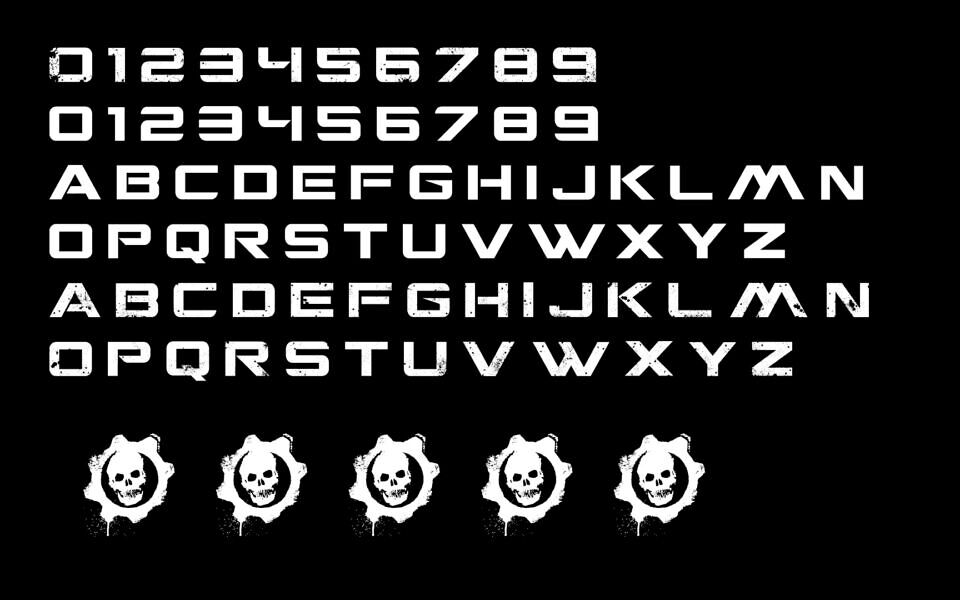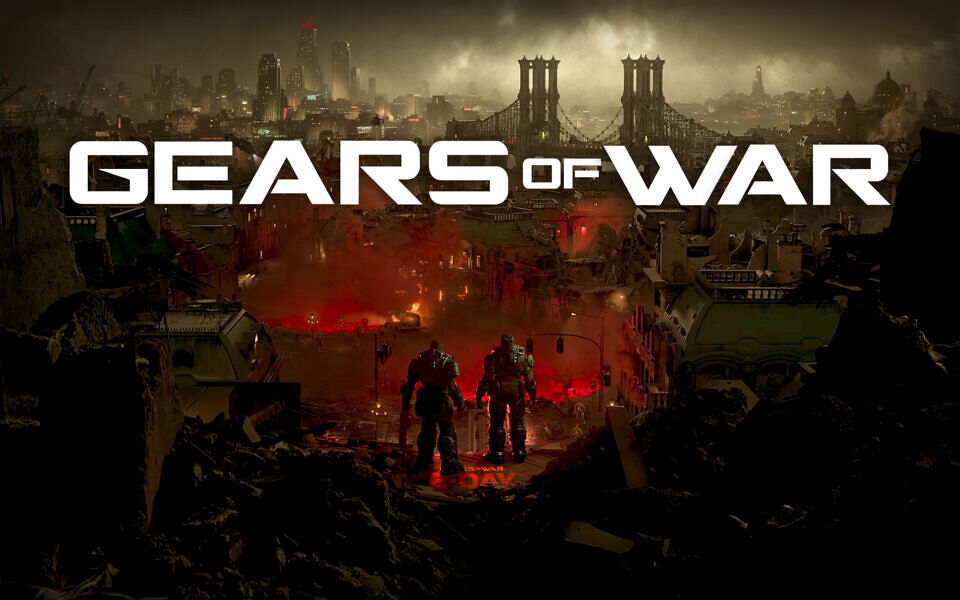
Gears Of War Font
Inspired by the iconic logo of the legendary video game series Gears of War, CGF Locust Resistance Font captures the gritty, battle-scarred style that made the franchise instantly recognizable.
Designed by Chris Garrett to replicate the original Gears of War logo font, this bold sci-fi typeface features sharp edges, distressed details, and a military-industrial aesthetic. Perfect posters, logos, thumbnails, headers, t-shirts, fan art, and futuristic designs that demand a strong and aggressive visual impact.
There are 2 fonts included in one:
• CGF Locust Resistance (Caps are clean, Uncaps are a little dirty)
• CGF Locust Resistance Massacre (Uncaps intensely Dirty, Caps “dirty”)
• ALSO: To type the Gears of War Skull Symbol on either font, Press the Question mark (?)